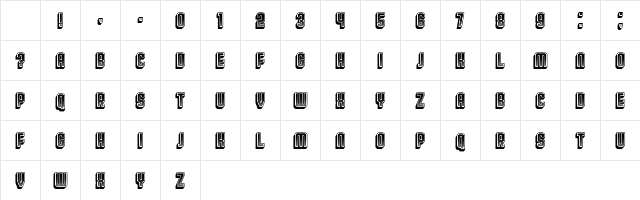
Broadway Gradient 3D is a composed and adaptable typeface that performs quietly and consistently across a wide range of design contexts.
Pro Tip: Use Broadway Gradient 3D in both headline and body roles to test its range before committing to a single application.